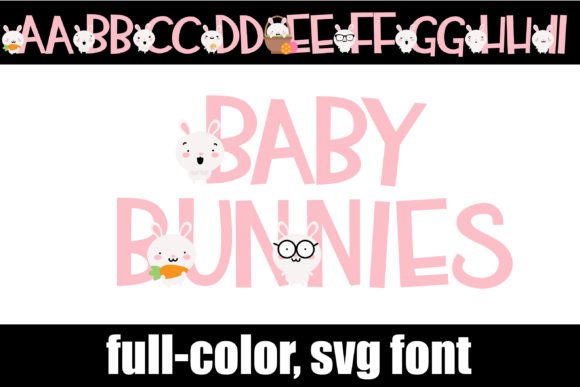
Step into a world of whimsical charm with Baby Bunnies Font, a delightful collection of playful letters, each adorned with an adorable bunny nestled amidst a symphony of springtime hues. This enchanting font is meticulously crafted to add a touch of magic to your creative endeavors, transforming ordinary designs into extraordinary expressions of joy and cheer.
With Baby Bunnies Font, you'll embark on a journey of limitless possibilities. Whether you're crafting heartfelt Easter cards, creating captivating invitations, or designing whimsical projects, this font will effortlessly elevate your creations, leaving a lasting impression on all who encounter them.
Immerse yourself in the vibrant world of Baby Bunnies Font, where imagination knows no bounds. Each letter is a masterpiece, meticulously designed to capture the essence of springtime's magic. From the delicate strokes of the bunnies' fur to the vibrant colors that adorn each character, Baby Bunnies Font is a visual feast that sparks creativity and captivates the senses.
Unleash the power of Baby Bunnies Font and watch your designs blossom into works of art. Its versatility knows no limits, making it the perfect choice for a wide range of projects. Create stunning logos that exude playfulness, design eye-catching social media graphics that engage your audience, or craft heartwarming personalized gifts that leave a lasting impression.
With Baby Bunnies Font, the ordinary becomes extraordinary, and the mundane transforms into the magnificent. Let your creativity soar and weave tales of enchantment with every design you create. Embrace the charm, embrace the whimsy, and let Baby Bunnies Font guide you on an artistic adventure like no other.